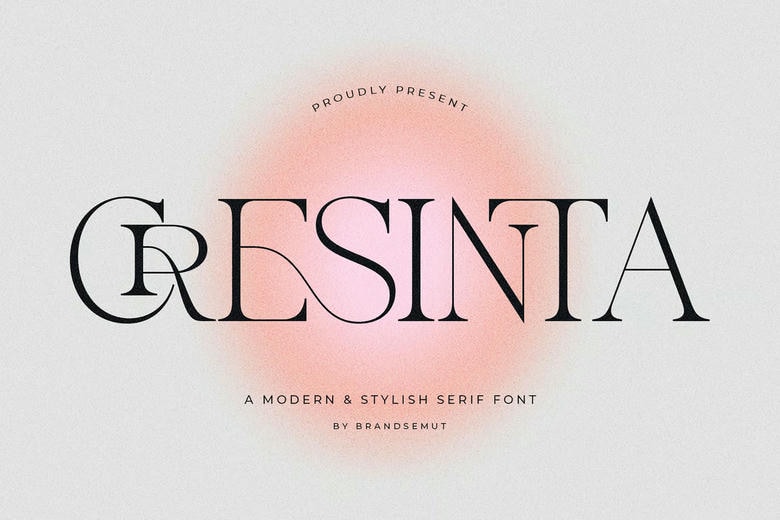
Cresinta Font
Cresinta is a contemporary and fashionable serif typeface that incorporates style, beauty and creativity in one refined typeface. Cresinta is the ideal typeface when it comes to projects, which require the use of a luxurious and professional typographic appearance, with its refined curves, high-contrast strokes, and distinctive details of the ligature.
Cresinta was inspired by editorial design and high-fashion branding and thus is a multi-purpose serif that can be utilized in print and digital media. Cresinta gives your design that high end polish and presence whether you are designing a logo, a magazine headline, a wedding invitation, or even a product package.
Cresinta Modern & Stylish Serif Font